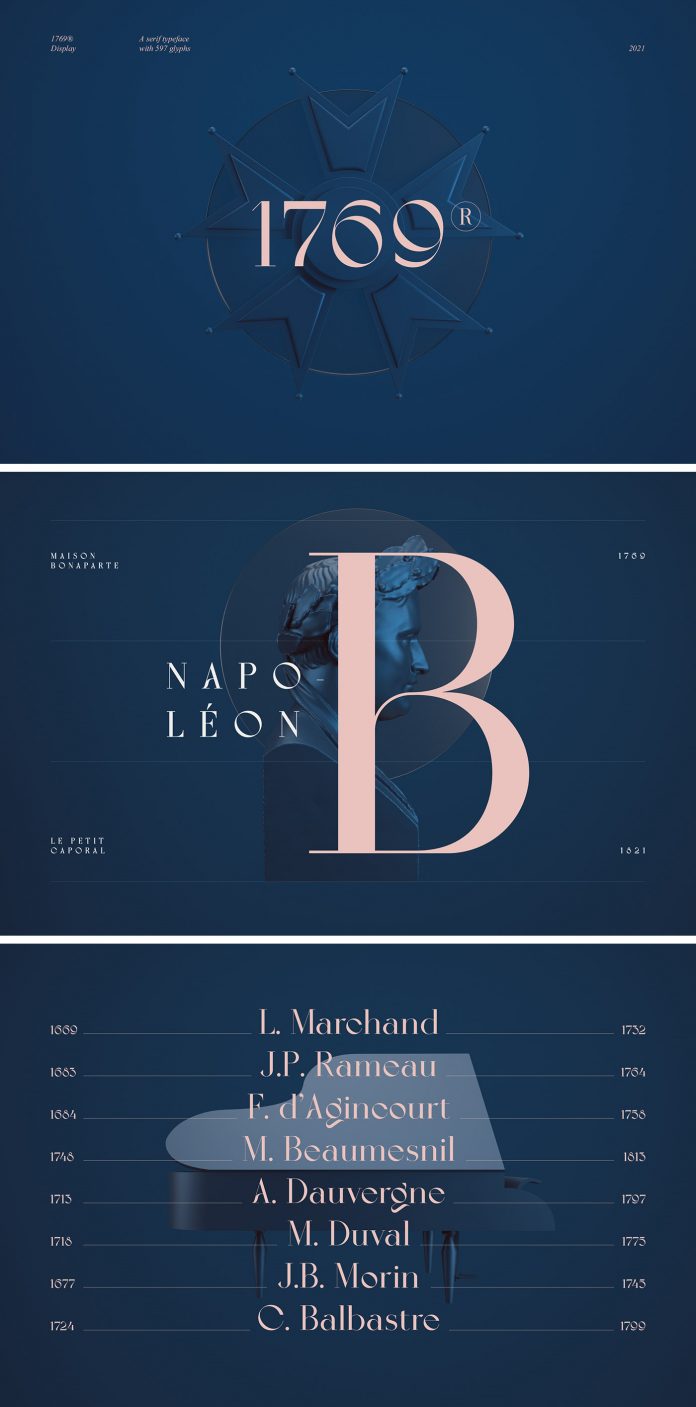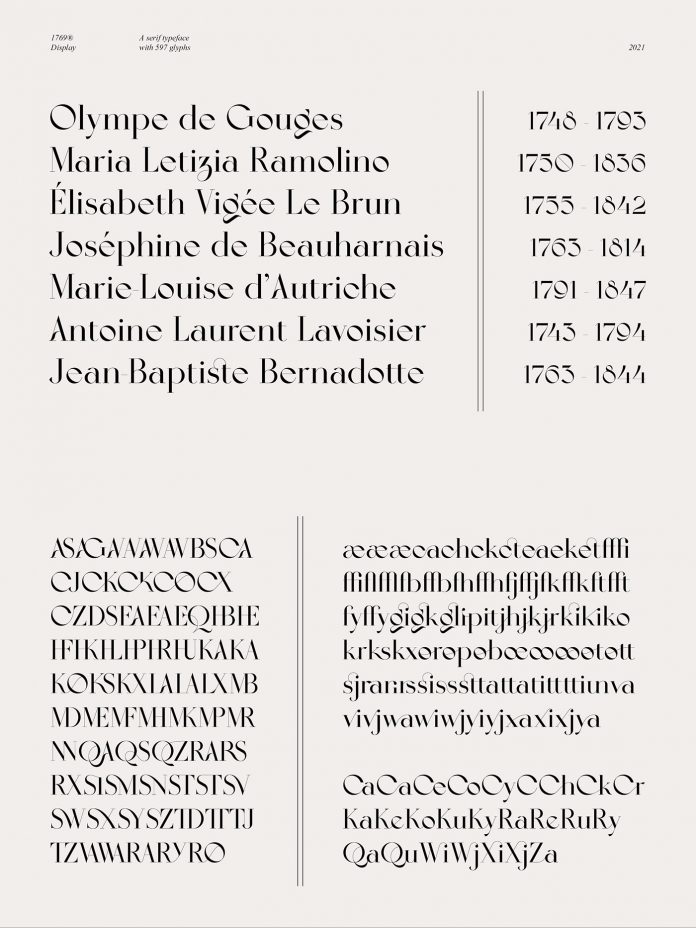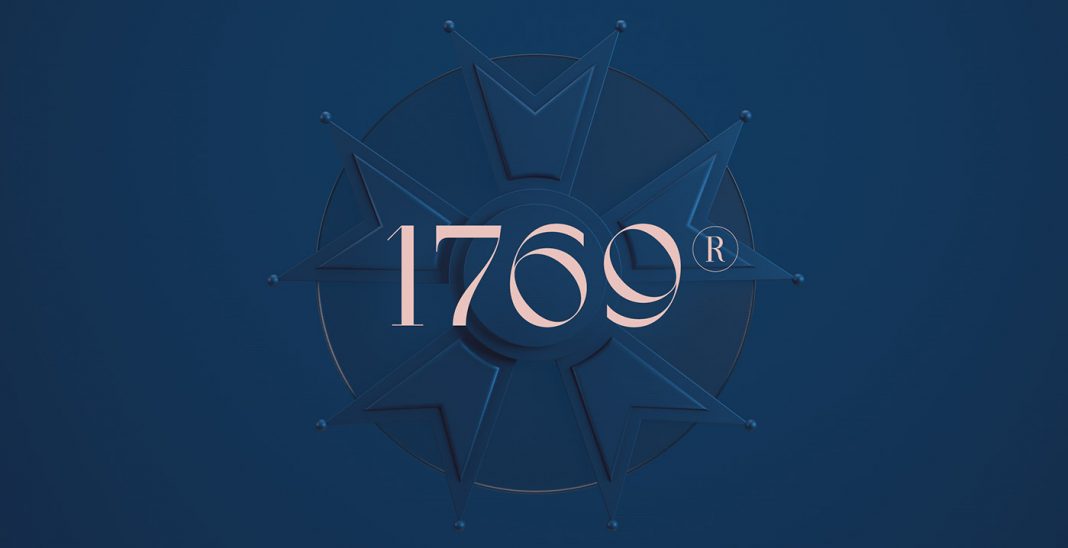
1769 is an elegant and modern display serif typeface inspired by the history of France and the Romantic movement.
Jérémie Gauthier of foundry Almarena designed 1769, an elegant and modern display serif typeface. The round shaps of all characters and several ligatures reflect the grace, refinement, and sensitivity of the 18th century. The name ‘1769’ refers to the birth of Napoleon Bonaparte. Consisting of 597 glyphs including several alternatives and ligatures, the font supports 93 languages. Feel free to click on the following link to get further information.